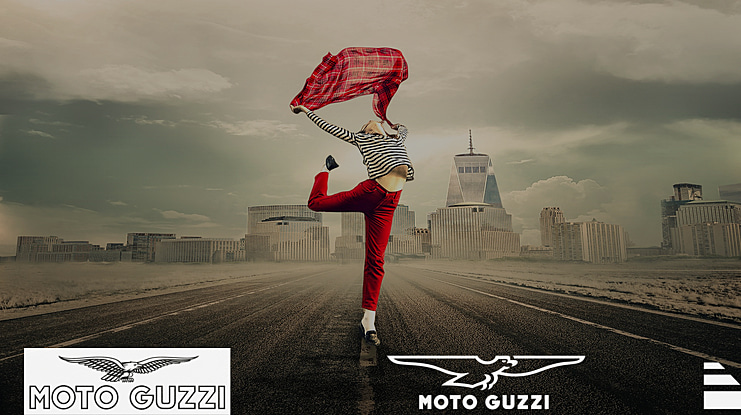
Moto Guzzi Font
This is a font for all those who love Moto Guzzi as much as I do. If you had to repaint your bike and now want to repaint the logo, you can download this font here, install it and select it in e.g. CorelDraw, Affinity Designer or Inkscape. There you can find the corresponding logo from the font and convert it into drawing paths. Saved as SVG, PDF, EPS or *.ai you can plot it and now have the missing font on your Guzzi. Good success...